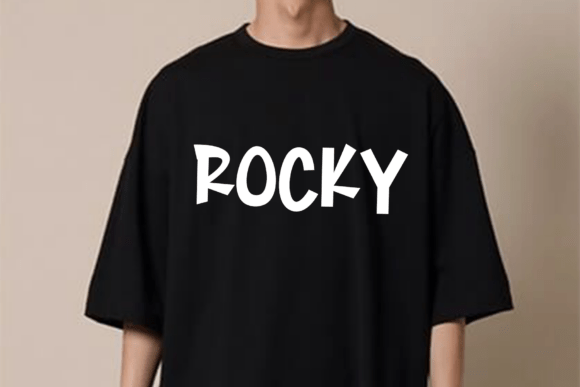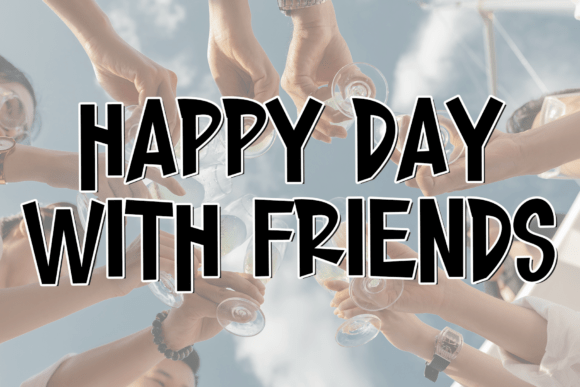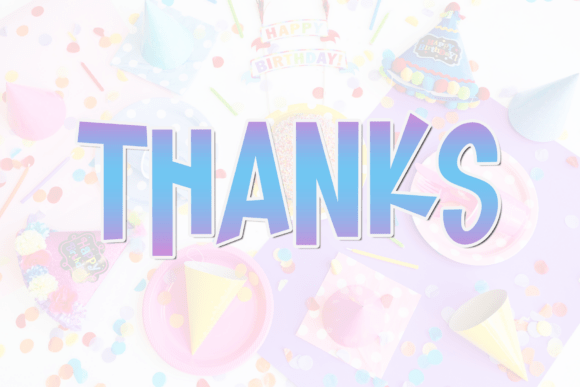
Get Ready to Party with the Birthday Party Font
Have you ever stared at a blank design screen, trying to capture the essence of a joyous celebration in your work? You know, that feeling when you need to convey the excitement and energy of a birthday party, but the words just won’t come together? This is where the Birthday Party Font comes in – a bold and playful display font designed to inject fun and enthusiasm into your projects.
With its vibrant and dynamic letterforms, the Birthday Party Font instantly sets a festive tone, making it perfect for party invitations, greeting cards, posters, banners, t-shirts, packaging, and event branding. As a designer, you’ll love how its chunky, modern style with sharp edges and a gradient-ready look adapts well to both digital and print projects, ensuring your creations stand out with a sense of fun and enthusiasm.
- Unique Characteristics: The Birthday Party Font features colorful and playful designs, including confetti, balloons, and other festive elements, making it perfect for birthday invitations and party decorations.
Birthday Party Font Review
I recently had the chance to work with the Birthday Party Font, and I must say it’s a unique and playful addition to any project. ✨ Here are some of its strengths:
- Eye-catching: The font is sure to grab attention with its bold, colorful design.
- Perfect for celebrations: The name says it all – this font is ideal for birthday invitations, party decorations, and more.
- Easy to use: The font is highly legible, making it simple to read and work with.
- Limited versatility: While the font is perfect for celebrations, it may not be the best choice for more formal or professional projects.
- Color dependency: The font’s effectiveness relies heavily on the colors used, which may not be suitable for all designs.
- Not suitable for small text: The font’s bold design makes it difficult to read in small sizes, which may limit its use in certain applications.
Overall, I think the Birthday Party Font is a fun and creative choice for the right projects. While it may not be suitable for all designs, it’s sure to add a playful touch to any celebration-themed project.
The Birthday Party Font is perfect for creating playful and festive designs for birthday parties, baby showers, and other celebrations. Use it to create invitations, party decorations, and other custom elements.